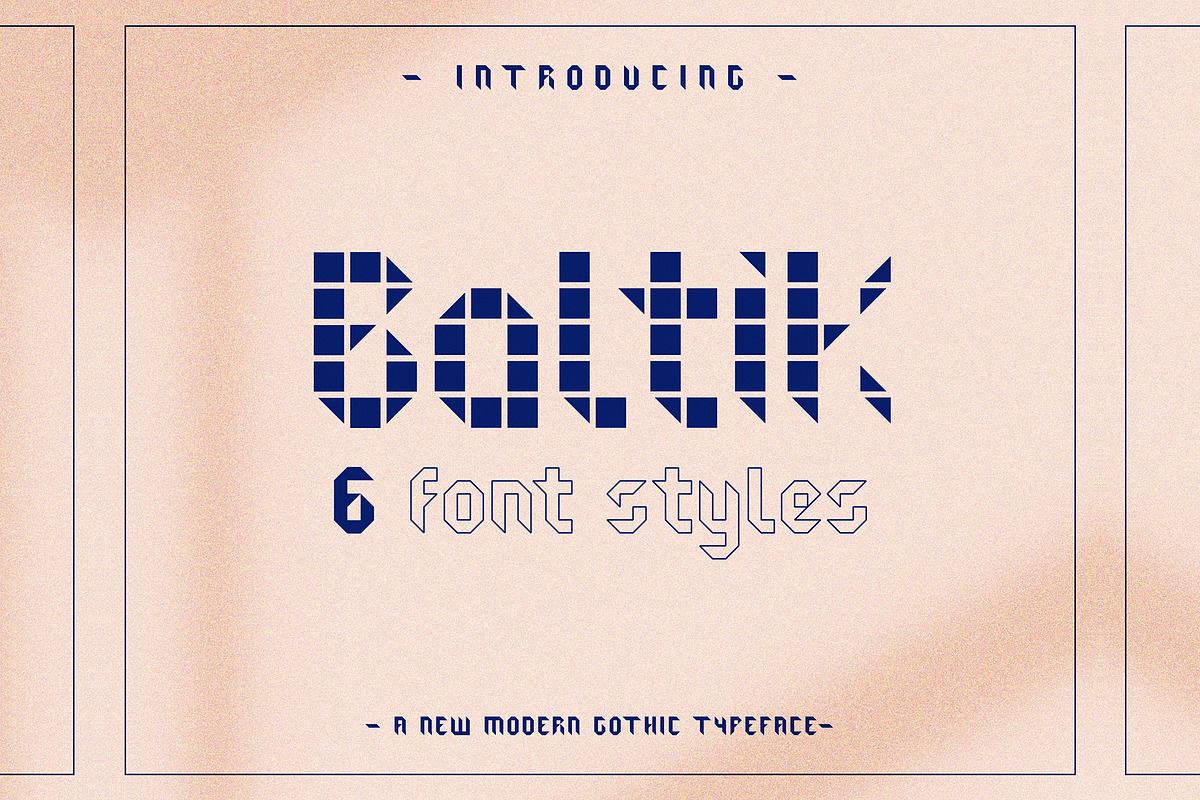
Baltik typeface - six fonts included Free Download
Baltik Typeface – Six Fonts Included Free Download
Baltik Typeface – Six Fonts Included Free Download is a versatile and modern font family that offers a clean, structured look with strong typographic presence. Featuring six unique styles, this typeface is perfect for branding, editorial layouts, packaging, web design, and creative presentations. Baltik blends geometric precision with contemporary aesthetics, giving you a professional and stylish toolset for any design project.
Whether you're building a visual identity or crafting standout headlines, the Baltik font family ensures consistency, readability, and impact across every platform. Each weight and style works seamlessly together to give you flexibility and cohesion.